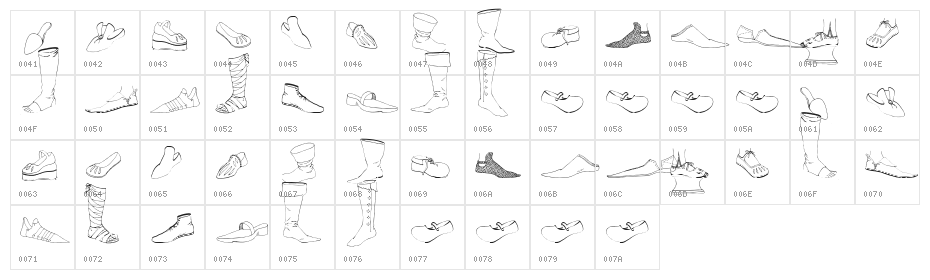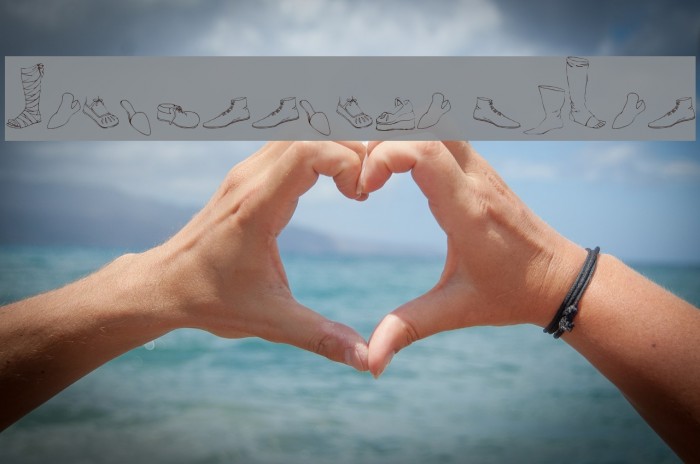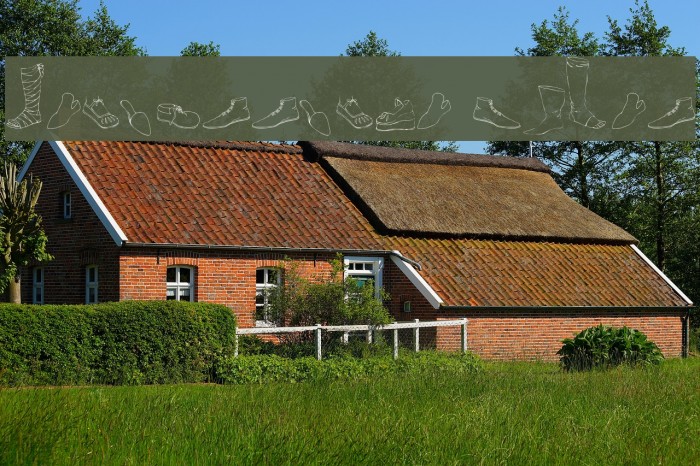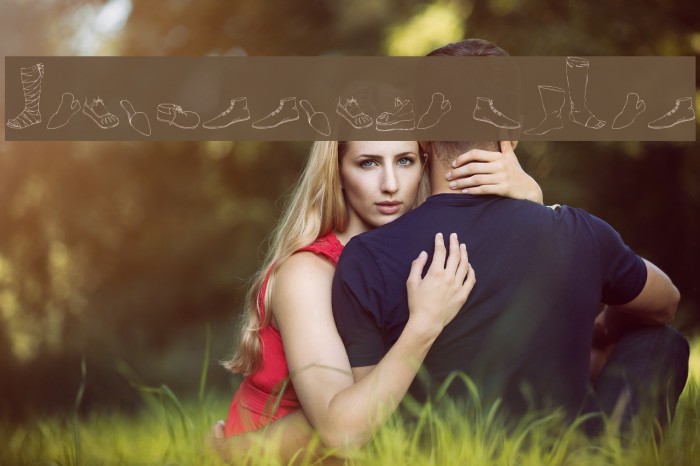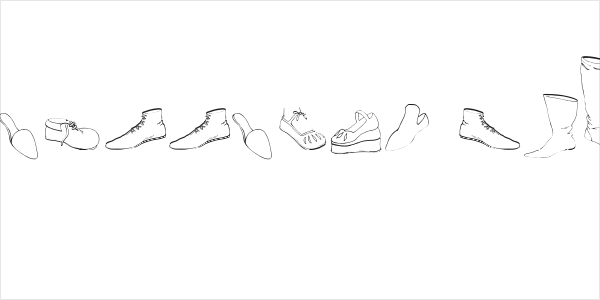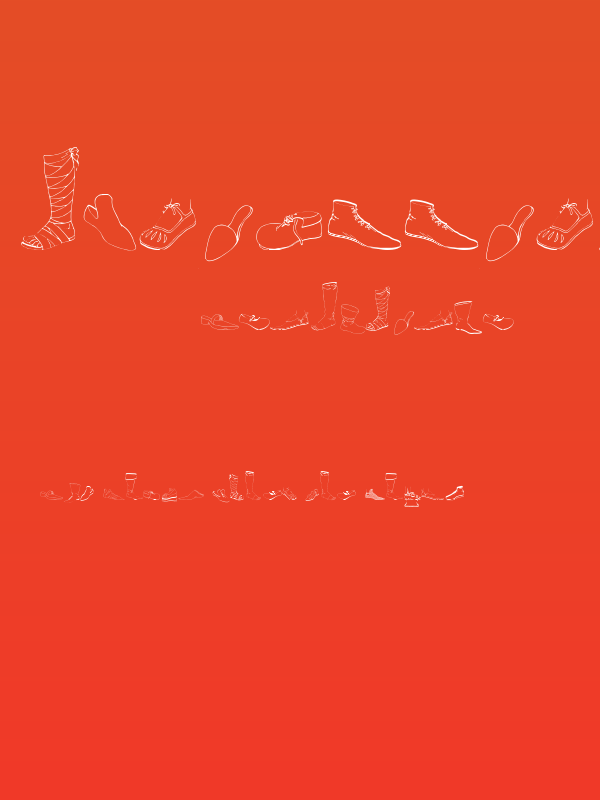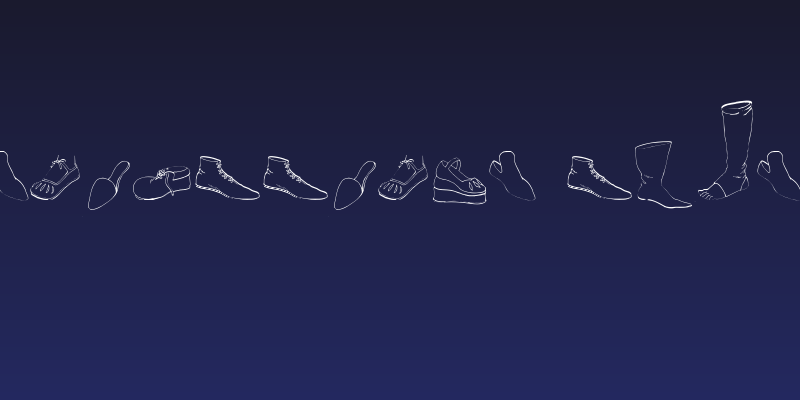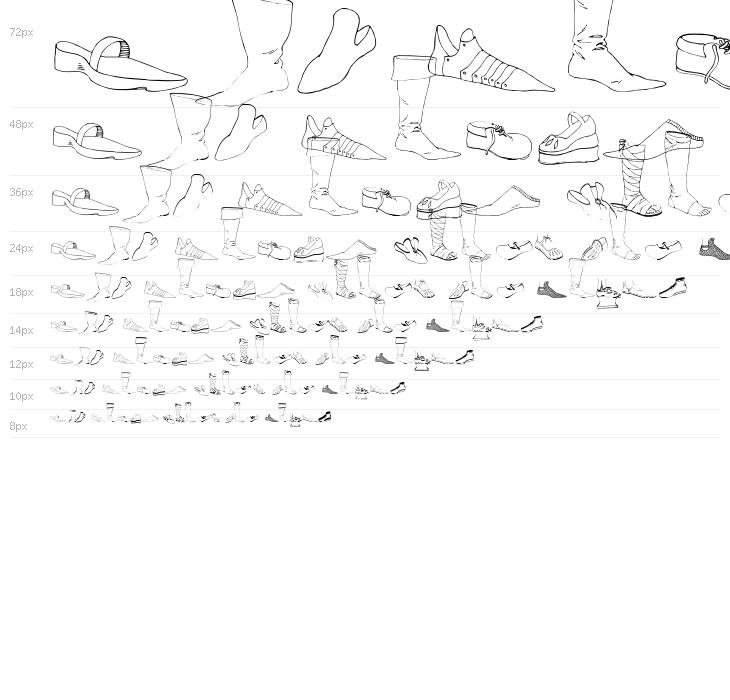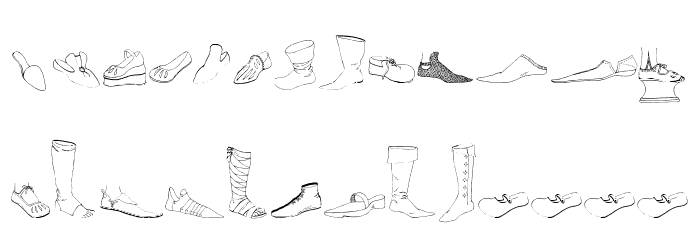
Renaissance Shoes Font
A decorative font composed entirely of detailed line drawings of various Renaissance-style shoes and boots, arranged to represent characters.
Overall StyleVintage, Illustrative
Use CaseHeadlines, Decorative titles, Themed invitations
Proposed ProjectsHistorical or themed event posters, costume design catalogs, theatrical playbills, museum exhibition materials, and creative branding for vintage or Renaissance fairs.